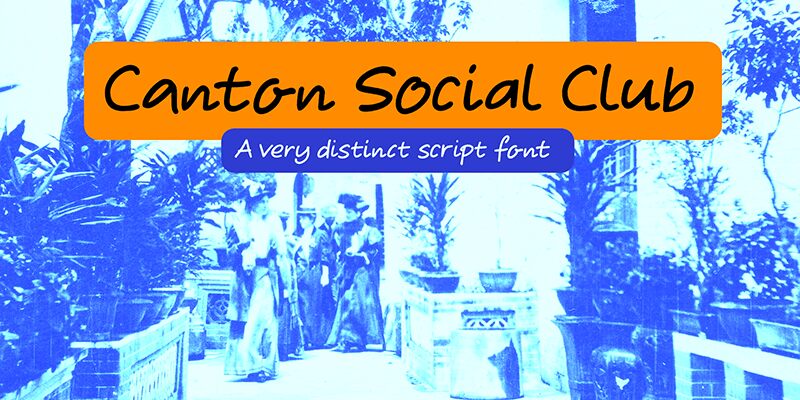
Canton Social Club DEMO Regular
Canton Social Club font by David Kerkhoff is a free handwritten font that captures a relaxed and casual tone. Its flowing characters convey warmth and modernity, making it ideal for lifestyle branding. The seamless letterforms in this typeface guarantee an appealing handwritten feel for every use.
This stylish font is made for magazine covers, social media posts, quotes, product labels, logos, packaging design, posters, invitations, websites titles and headers. Enjoy using it on any print or digital project whether professional or personal.